15 Best Fonts Bubble for Everyday Designs
Whether you’re embarking on the delightful journey of crafting children’s birthday cards or seeking to add an extra dose of flair to your gender reveal decor, the world of fonts bubble awaits your creative touch. Bubble fonts are a delightful option that can inject a sense of playfulness and whimsy into your designs. Their rounded letterforms exude a childlike charm, making them a perfect choice for a wide array of joyous occasions.
While bubble fonts share an overarching theme of playfulness, it’s important to exercise discernment when selecting from the plethora of options available. Some bubble typefaces radiate cheerfulness and lightheartedness, while others possess a bolder and darker aesthetic. It’s essential to choose the right bubble font that aligns with the specific mood and message you want to convey in your design.
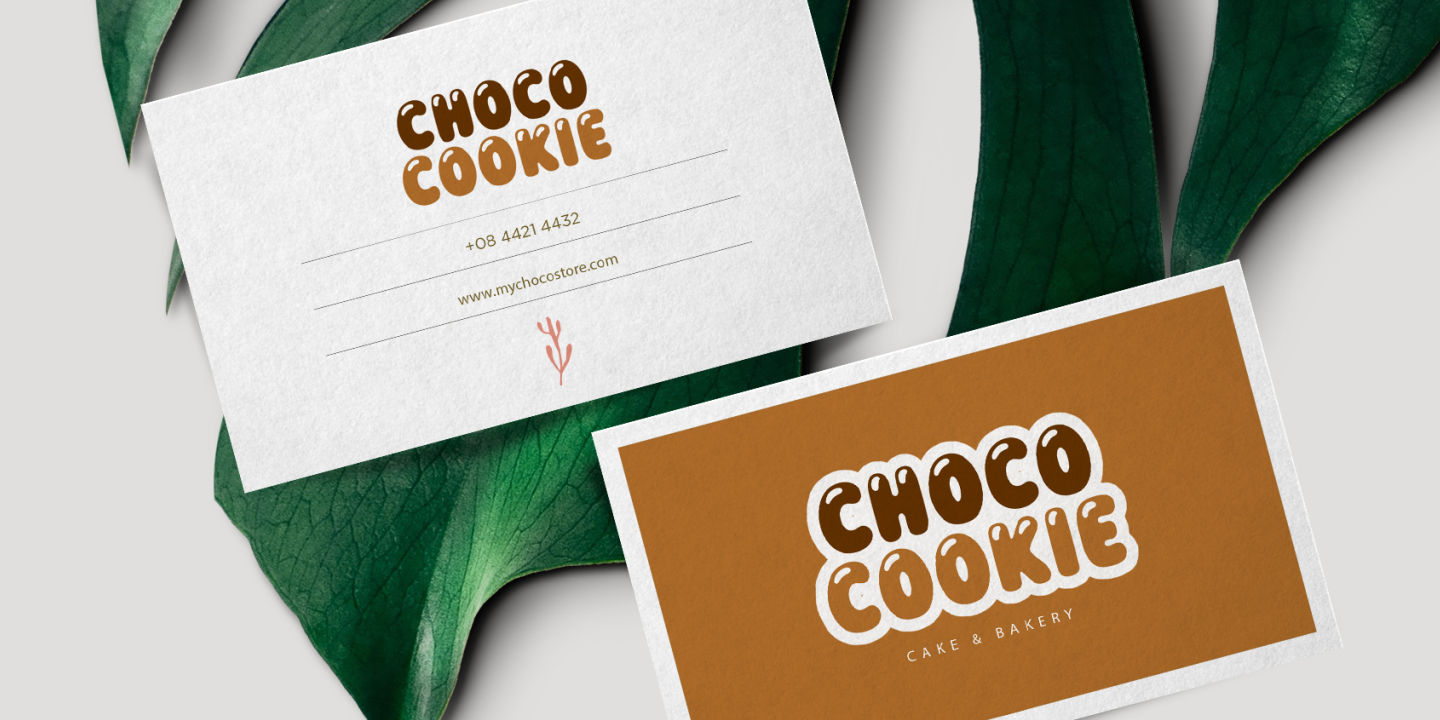
Furthermore, it’s important to note that while this type of font can bring an element of fun to your designs, using them excessively within a single composition can be counterproductive. The exuberant charm of this font is most effective when used sparingly, such as for short titles or to emphasize a single word. Overindulging in it can dilute their impact and make your design appear cluttered. Therefore, it’s essential to strike a balance and use it judiciously to achieve the desired effect.
Are you ready to explore the exciting world of fonts bubble and infuse some playful creativity into your projects? Delve into a curated selection of the 15 best bubble typefaces that can add a touch of whimsy and joy to your artistic endeavors.
1. Chunky Bomb
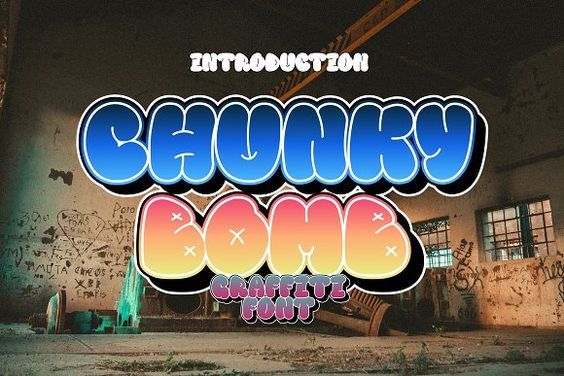
The name itself suggests the substantial and bubbly nature of this typeface. Chunky Bomb features large, plump letterforms with minimal spacing between strokes and letters. Each gap within a letter is accentuated by a single curved line and a rounded line to enhance its “bubbliness.”
For example, the letter “U” takes the form of a bubbly heart shape with a central line and a small horizontal line at the bottom. Chunky Bomb is ideal for short titles, two-word idioms, and significant events where you need to make a bold statement. However, it’s not suitable for writing names due to its distinctive design. Additionally, you may find its transitional color feature to be a delightful surprise.
2. Bubble Print
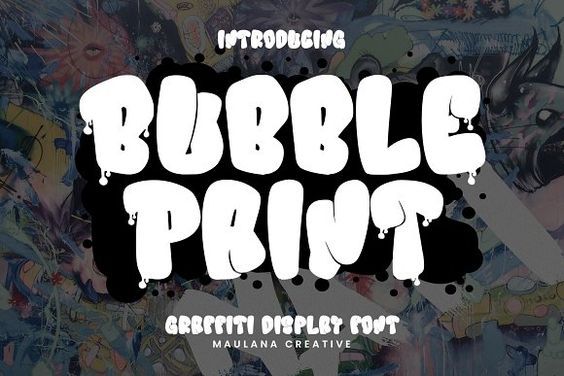
Hosting a Halloween party for children? Look no further than Bubble Print to set the eerie yet playful tone. This font introduces a spooky element with its melting end effect, particularly evident in the first and last letters of each word.
Bubble Print comes in an off-white color reminiscent of crackling skeletons. When combined with black, it evokes a neon-like vibe that could be the sole source of light in a dimly lit room. When used in card design, it conjures images of haunted houses and the friendly ghost, Casper.
3. Shine Bubble
If you’re familiar with the infamous Comic Sans font, Shine Bubble shares a striking resemblance. This bubbly font is perfect for a pink-themed birthday party, with its clean design and decoration, which adds a touch of depth without going overboard.
However, Shine Bubble versatility extends beyond birthdays; even letterforms and neat appearance make it suitable for longer words and a variety of design applications. Whether you’re creating a confectionery shop logo or working on packaging, Shine Bubble has you covered.
4. Jelly Fox
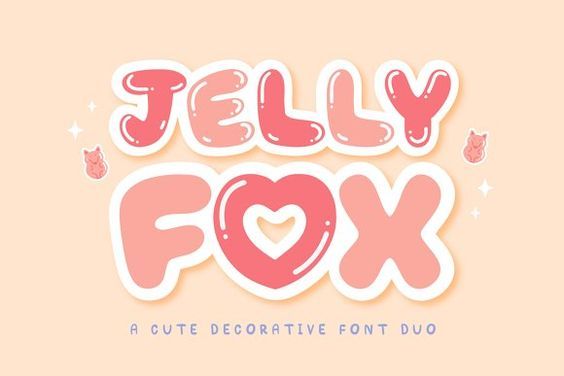
Whether planning a jelly-themed party or running a jelly shop, Jelly Fox is your go-to typeface. This font masterfully captures the essence of jelly with its glistening edges and rounded contours. Incorporate it into your jelly shop’s logo, and watch as customers eagerly queue up. There’s something enchanting about this font that makes your mouth water and your craving for jelly intensify upon first sight. A word of caution: if you happen to view it on a screen, exercise restraint, as you might be tempted to scratch that sturdy Gorilla Glass.
5. La Fiesta
Think fonts bubble are confined to round shapes with no room for cursive elegance? Think again! La Fiesta defies convention with its cursive bubble font that adds a festive flair to your designs.
At first glance, you might mistake it for pasta-inspired lettering, but La Fiesta is much more than that. Despite its graceful curves, this font maintains a slender profile, allowing ample room for its festive loops and swirls.
While it may not resemble the typical fonts bubble you’re accustomed to, La Fiesta stands as the quintessential choice for a full-blown bubble font design. Whether it’s a party, a charity event, an exhibition, or a bustling food court, La Fiesta rises to the occasion.
6. Mister Bubble
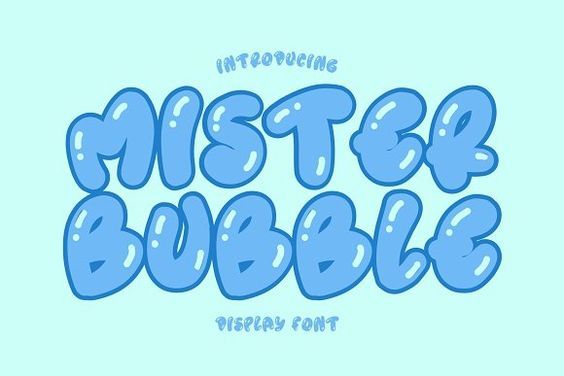
If you were a child of the 90s, you might find that this font’s colors bear a striking resemblance to Blue, the beloved dog from the TV show Blue’s Clues. Thanks to its color palette and luminous effect, Mister Bubble exudes a more pronounced bubble-like appearance than its counterparts. With these distinctive features, Mister Bubble proves to be an ideal choice for a shower party or any event where bubbles take center stage or when a touch of playful blue is in order.
7. Cherry Blossom
Cherry Blossom transports you to the world of Barbie with its vibrant Barbie pink hue. This font boasts a tri-layered color scheme, featuring pink on the outer layer and white and pink on the middle and inner layers. Pair it with a light blue background, and you’re all set to create designs fit for adorable, fun-filled parties that will enchant little princesses.
8. Big Bloom
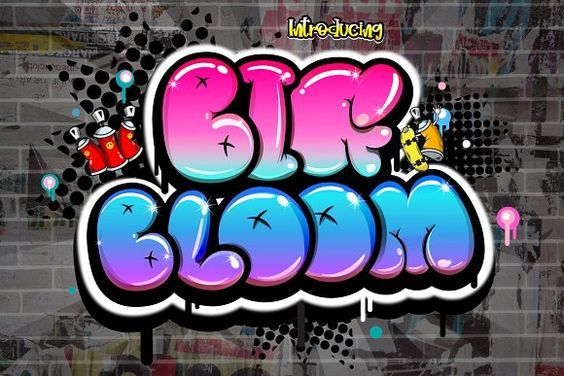
Embrace the spirited, rebellious energy of young partygoers with Big Bloom. Its slightly dark and edgy aura makes it perfect for pirate-themed and Halloween parties. This playful font isn’t confined to early teenagers; it also resonates with high school students seeking to infuse their gatherings with a blend of darkness and fun.
Big Bloom’s absence of sharp edges ensures that nothing feels overly serious. With fonts bubble, your design’s background color can set the tone – a dark background yields a dark vibe, while a bright background generates a fun atmosphere, especially when combined with shades of pink, light blue, and violet.
9. Bubble
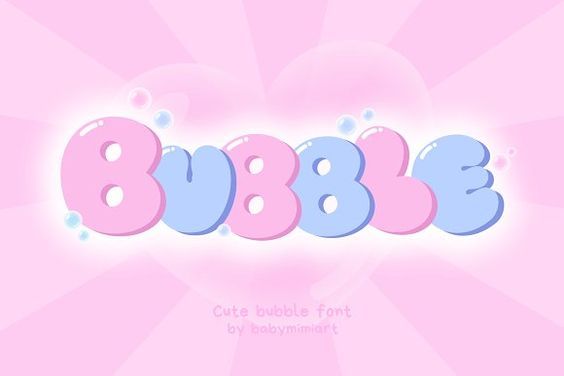
With its baby pink and light blue color palette, Bubble may not be the first choice for adolescent occasions, except for shower parties. If it’s not a shower party, the color combination can add an air of mystery to a gender reveal celebration. This charming font, free of sharp edges, lends itself well to various applications, such as brand logos for baby products. The combination of thick letters and vibrant colors gives the impression of delectable cotton candies.
10. Humble Popstar
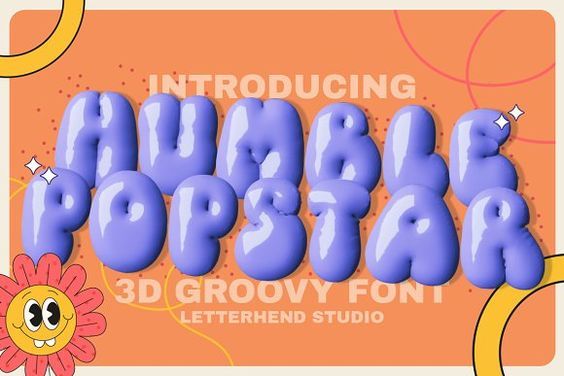
If you’re in the business of slime, look no further. This embossed font exudes thickness and shine, boasting hyper-realistic features that resemble real slime rather than a two-dimensional representation. In fact, any occasion involving slime, from slime projects to slime-themed events, will benefit from the unique appeal of this font.
However, it’s important to choose an appropriate background color to complement its violet hue. Opting for purple or blue backgrounds may cause its glow to diminish; instead, consider using shades of yellow, orange, and red for the best effect.
11. Smothy
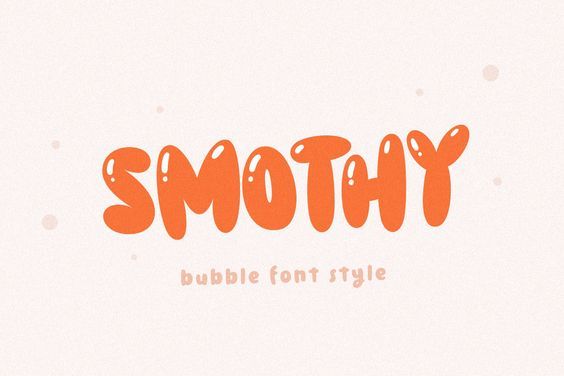
True to its name, Smothy is a smooth typeface within the fonts bubble category that imparts a subtle sense of joy often missing during holidays. It’s not excessively bubbly; in fact, it’s a flat 2D font in orange that may not initially strike you as particularly special. However, with your creative touch, you can infuse a sense of happiness into any occasion. Smothy is a testament to the idea that simplicity can be a powerful design choice.
12. Puffy Puff
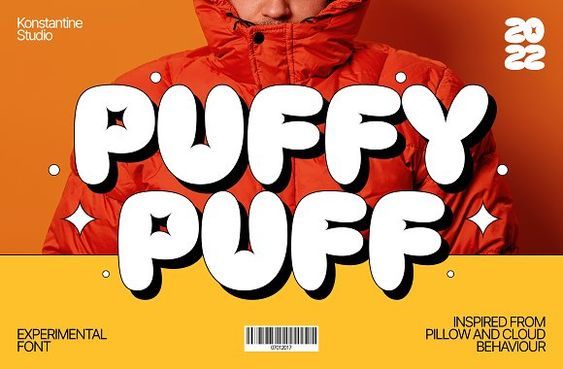
Fonts bubble, as a category, are often associated with round shapes and bubbly aesthetics. However, there’s more to them than meets the eye. Puffy Puff is a prime example. Its design doesn’t just evoke bubbles; it also bears a striking resemblance to puffy balloons, which is where it gets its name.
Furthermore, this typeface can even be reminiscent of plush sausages, expanding the range of creative possibilities for its application. Ultimately, how you use this font is entirely up to your imagination.
13. New Yorkies
As the name implies, New Yorkies introduces a unique twist to fonts bubble with its slim and uneven letters. This bubbly font maintains a slim and sharp appearance while retaining its inherent bubbliness.
With these distinctive features, New Yorkies takes on a trendy and fashionable vibe that makes it a perfect choice for business branding purposes. From trendy shoe brands to stylish apparel lines, New Yorkies effortlessly adapts to diverse design needs. Moreover, this typeface of fonts bubble is equally well-suited for crafting freestyle sports flyers, demonstrating its versatility.
14. Wild Days
The name “Wild Days” might seem misleading, given the font’s endearing and cute letterforms. This layered font introduces a subtle glow with its peach color and shadows that seamlessly bridge the gaps between letters, connecting the upper and lower sections.
Wild Days offers a wealth of creative possibilities, making it an excellent choice for various projects, especially those geared towards children and young audiences. Whether you’re designing kids’ projects or playful promotional materials, this font’s charming aesthetic can enhance your work.
15. Bling
Joining the ranks of fonts bubble is Bling, which offers a 3D-like appearance that sets it apart from the rest. This dark, crystal-clear font boasts a shiny and reflective quality that differentiates it from the pack. Its clarity lends it a liquid-like quality, simultaneously evoking the appearance of water and a metallic substance, thanks to its rose gold color.
While it may not be suitable for every occasion, Bling provides a distinctive and eye-catching option to infuse intrigue and elegance into your designs. Experimentation is encouraged, as you’ll discover numerous ways to make your designs captivating and memorable with this font.
These are the top 15 fonts bubble that can bring a playful and whimsical touch to your creative projects. While these fonts collectively embrace the bubbly aesthetic, each one offers unique features, color schemes, and characters that can be tailored to align with your unique design vision.